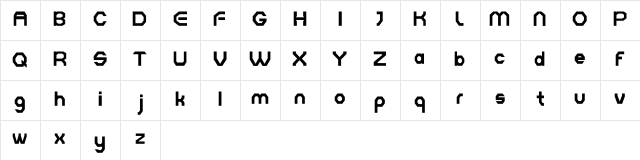
EXXA GAME Regular
Design Context for EXXA GAME Typeface
EXXA GAME is a composed and adaptable typeface that performs quietly and consistently across a wide range of design contexts.